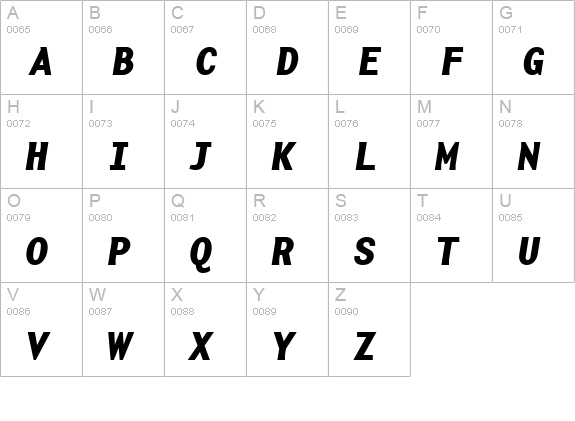
BaseMonoWideBoldItalic Bold Italic Font Details
BaseMonoWideBoldItalic Bold Italic is a strong, high-contrast, italic variant in the BaseMonoWideBoldItalic typeface family \xE2\x80\x94 well suited to headlines, attention-grabbing titles, and strong calls-to-action.